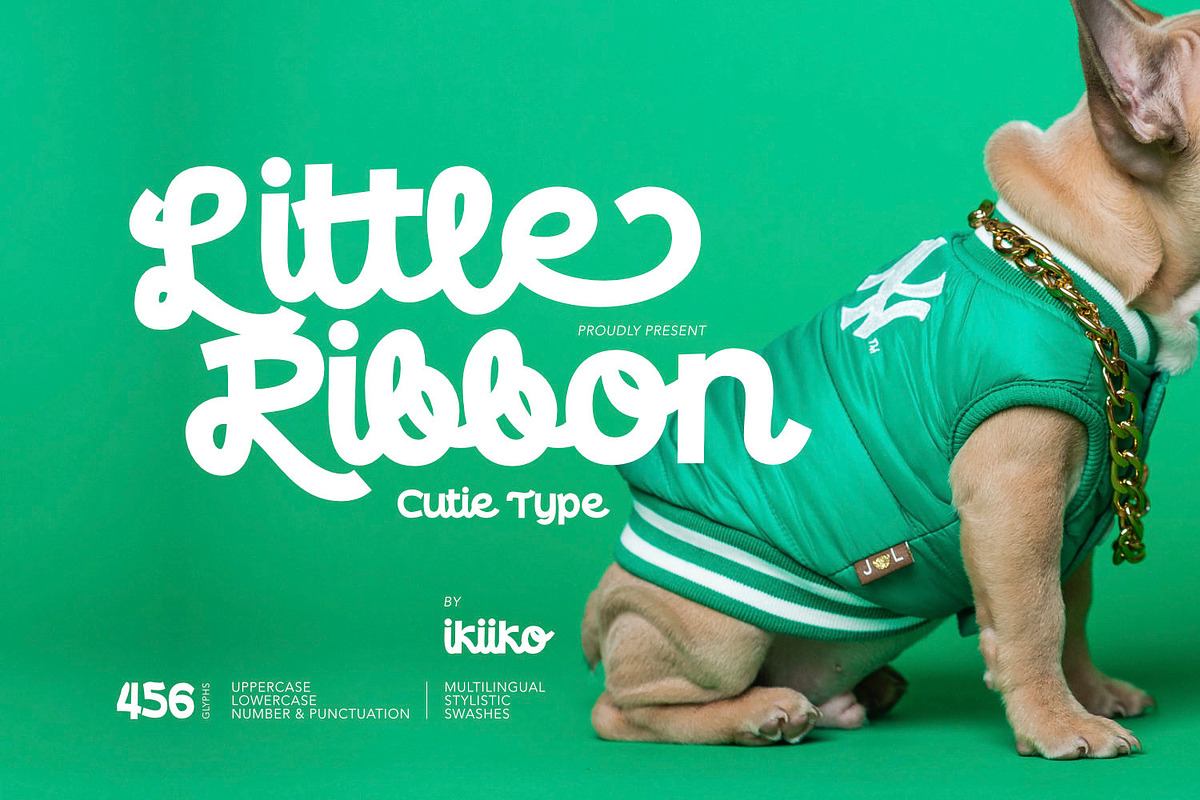
Little Ribbon – Cutie Type Font Free Download is an irresistibly charming typeface that radiates sweetness and playfulness. Perfect for children's designs, greeting cards, stickers, baby shower invites, and whimsical branding, this font brings a joyful and friendly vibe to any project.
With its rounded edges and cute handcrafted style, Little Ribbon – Cutie Type Free Download adds personality and warmth to your visuals. It’s a go-to choice for designers looking to create soft, approachable, and lighthearted content. Whether you're building a nursery brand or crafting a cheerful poster, this font is sure to delight your audience. Download it today to explore its full potential before deciding on a commercial license—it’s as fun to use as it is to look at!